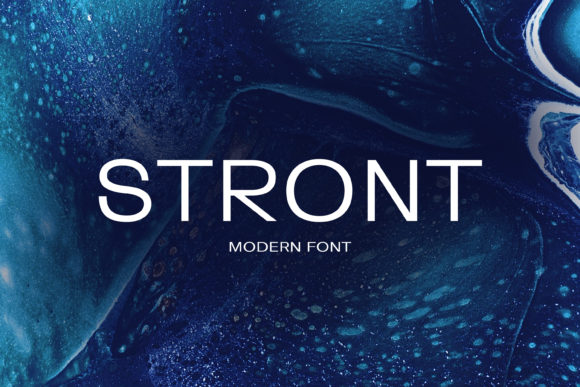
Introducing Stront, a bold and sophisticated sans serif font that exudes strength and elegance. Created by the renowned DmDesignsStoreArt, Stront Font stands out with its unique style and impeccable craftsmanship. Its modern, clean lines evoke a sense of timeless appeal, making it the perfect choice for any design project seeking a touch of class.
With its strong and sturdy demeanor, Stront Font asserts its presence on any page. Its clean, sharp edges radiate a sense of confidence and poise, creating an impactful visual statement that is sure to leave a lasting impression. Whether you're crafting logos, headlines, or body text, Stront Font delivers a legible and visually appealing experience that captivates your audience.
Beyond its aesthetic prowess, Stront Font is a versatile workhorse that adapts seamlessly to a wide range of design needs. Its sans serif nature lends it a modern and minimalist feel, while its strong and sturdy construction ensures it remains legible even at small sizes. This makes it an ideal choice for both digital and print applications, from website design to branding materials.
Whether you're a seasoned designer or just starting out, Stront Font is your key to unlocking a world of creative possibilities. Its intuitive design and effortless readability make it a joy to work with, ensuring a smooth and enjoyable design experience. Embrace the power of Stront Font and elevate your designs to new heights of sophistication.